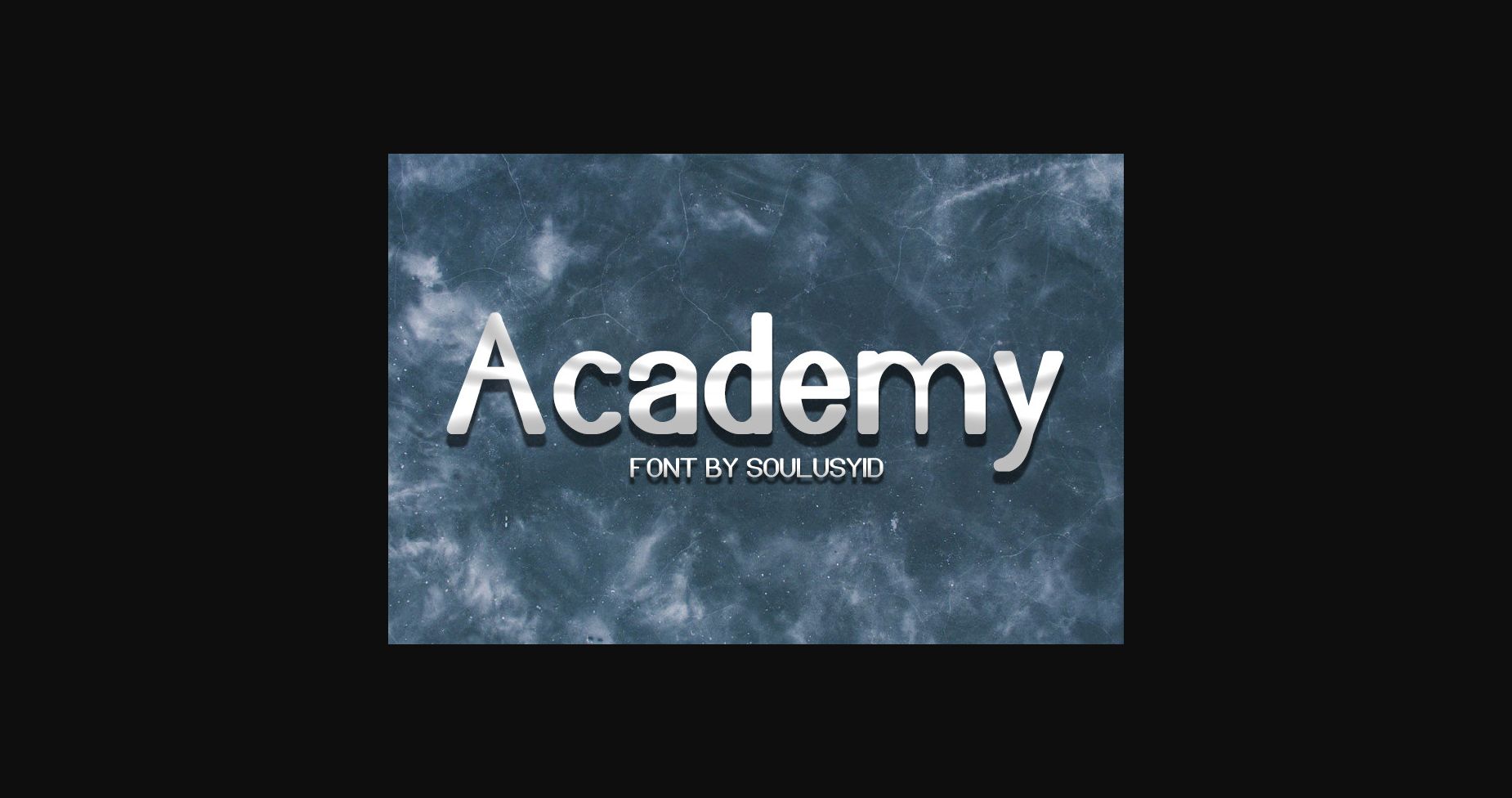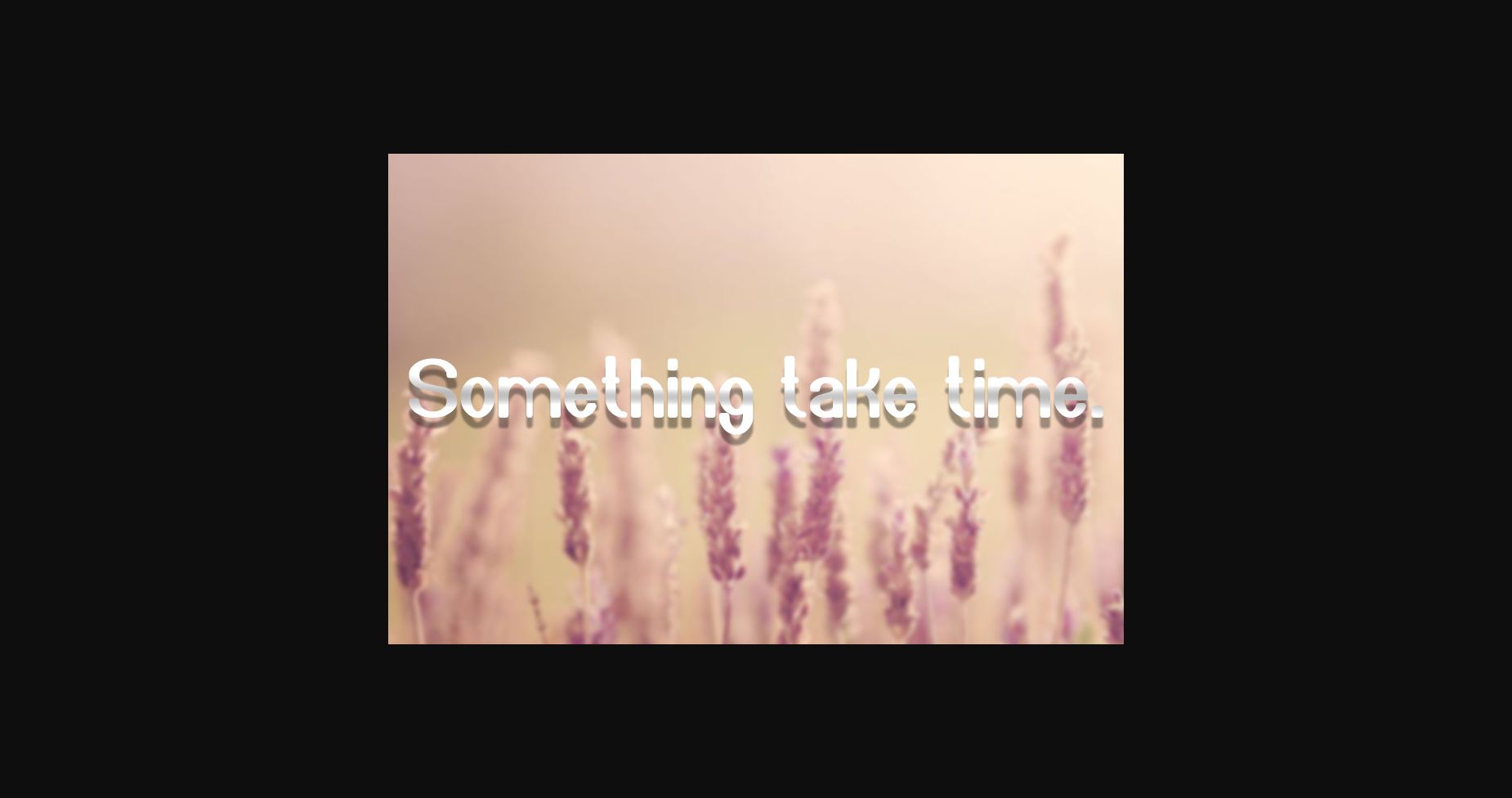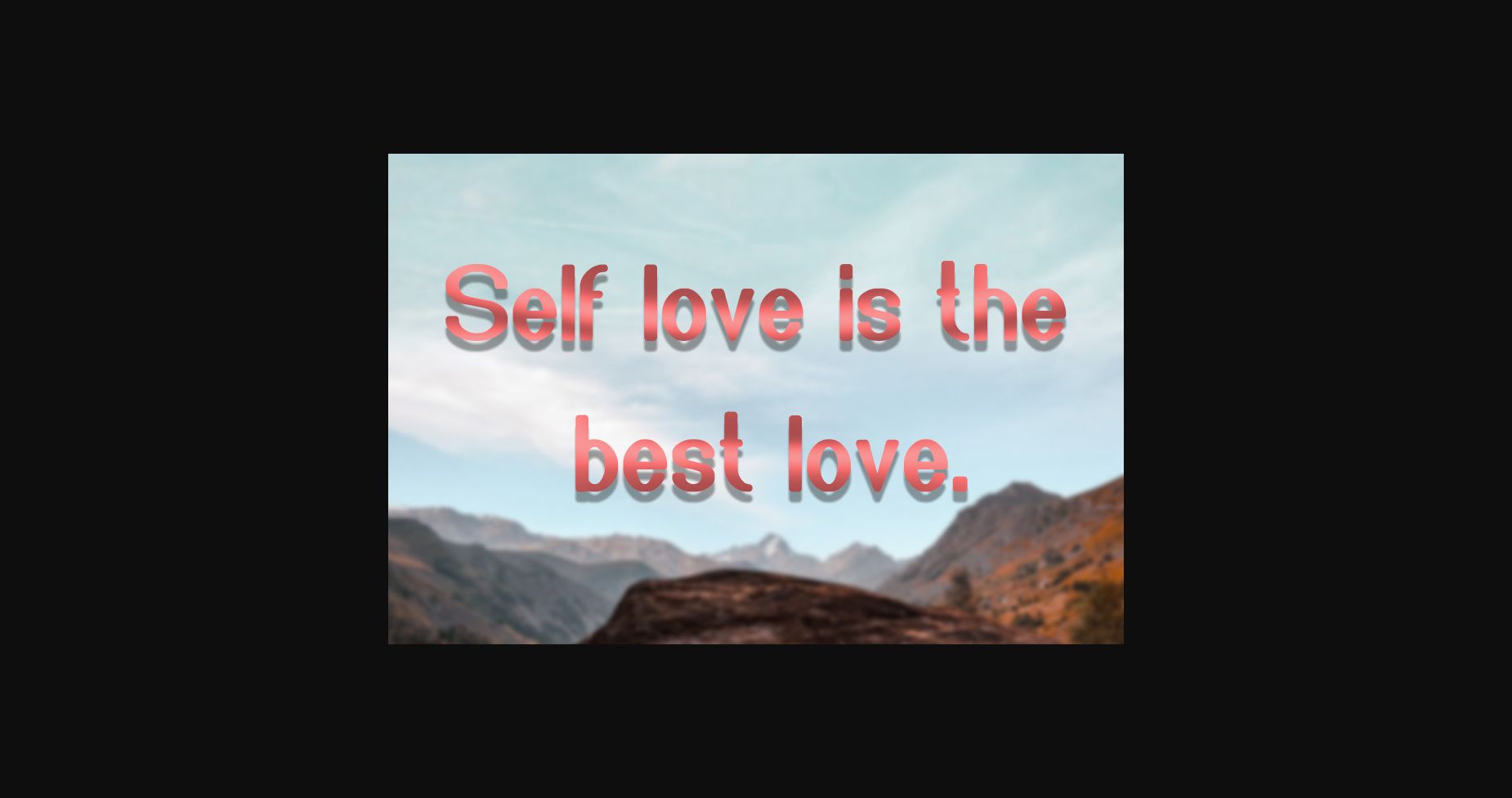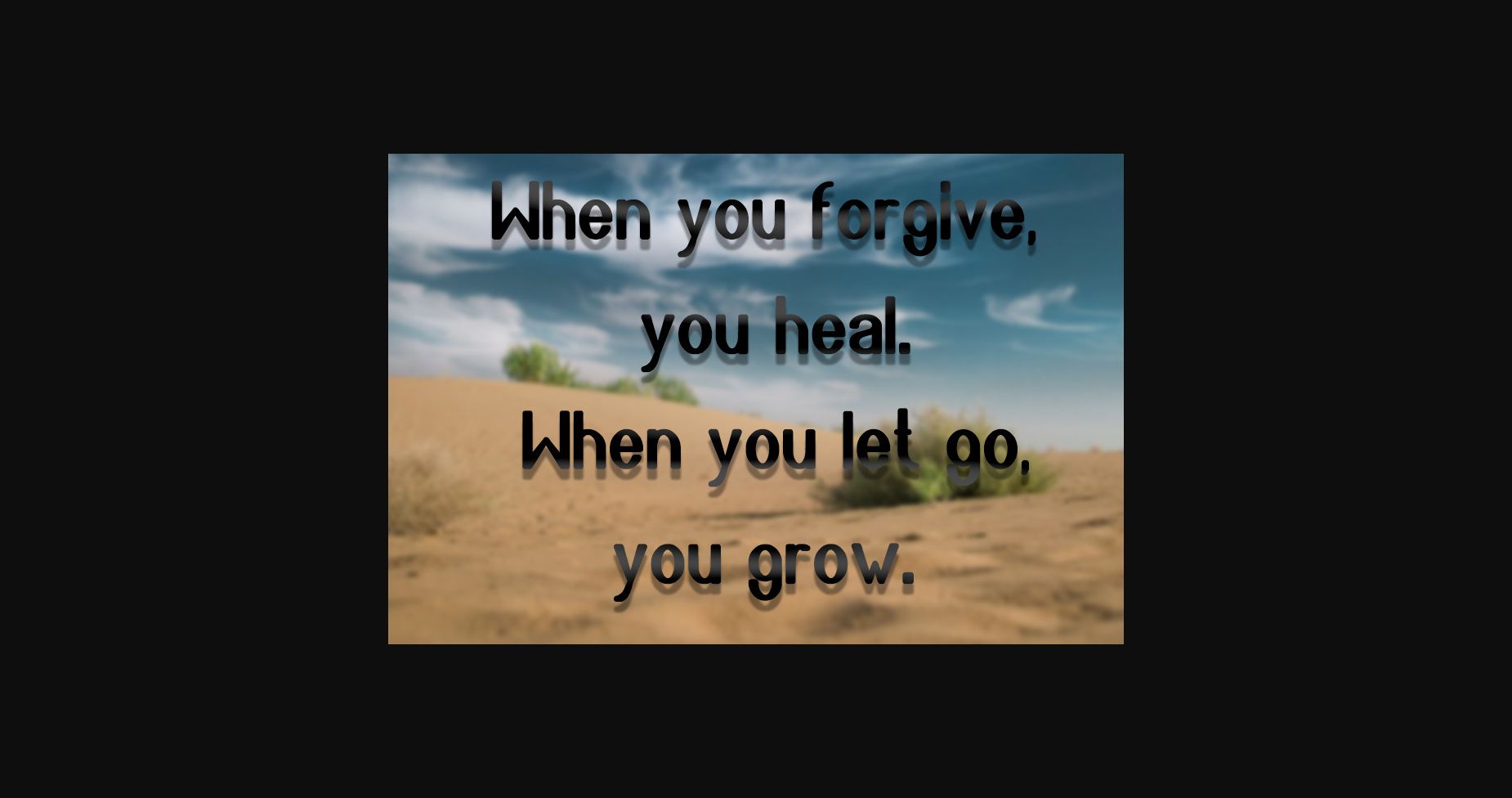
Academy Font
About Academy Font
Academy is a clean sans-serif font. This font is perfect for branding projects, logos, social media posts, advertisements, product packaging, wedding invitations, product designs, label, photography, watermark, stationery and so much more.